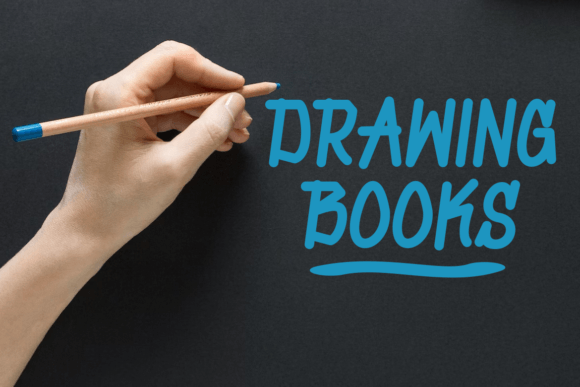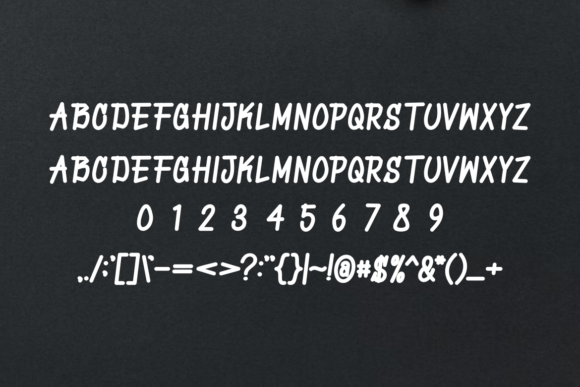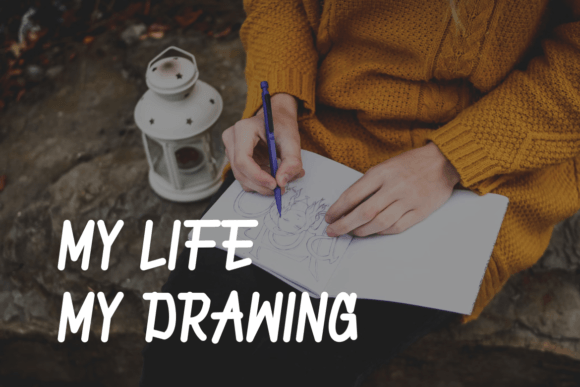
Introduction to Rushak Thatan Font
Have you ever sat in front of a blank canvas, staring at a blank page, and wondering where to start? The blank slate of a creative project can be intimidating, but it’s also an opportunity to bring your ideas to life. And what better way to do that than with a font that’s as unique as your imagination?
Enter the Rushak Thatan Font, a natural and friendly handwritten font that’s perfect for designers looking for a high-quality design resource. With its transparent background and free download option, this font is a valuable asset for any creative project. Its natural and unique style makes it incredibly fitting to a wide range of designs, limited only by your imagination.
Key Features of Rushak Thatan Font
- High quality design resource ideal for creative projects, with a unique and elegant aesthetic.
- Features a transparent background, allowing for easy layering and composition in your design projects.
- Designed with precision and care, ensuring a crisp and clear display at resolutions up to 300 DPI.
- Perfect for use in graphic design, digital art, and typography projects, where a high-quality font is essential.
- Supports a wide range of languages, making it a versatile choice for designers working on multilingual projects.
Honest Review: Rushak Thatan Font
I recently had the opportunity to work with the Rushak Thatan Font for a creative project, and I must say it’s a great addition to any designer’s resource arsenal. The font’s unique design and high quality make it a standout choice for any design-related task.
Here are some of the things that work well with the Rushak Thatan Font:
- ✨ High quality and crisp lines make it perfect for large-scale designs
- ✨ The font’s transparent background makes it easy to layer and combine with other design elements
While the Rushak Thatan Font is a solid choice, there are some limitations to be aware of:
- ⚠️ The font may not be as versatile as some other options, making it less suitable for projects with a wide range of font sizes
- ⚠️ The font’s unique design may not appeal to all designers or audiences
Overall, I’m impressed with the Rushak Thatan Font and would definitely consider using it for future creative projects. Its high quality and transparent background make it a valuable resource for any designer looking to elevate their design game.
Rushak Thatan Font is a high-quality design resource ideal for creative projects. This font features a transparent background, making it versatile for various applications.
To maximize the potential of Rushak Thatan Font, experiment with different font sizes, colors, and combinations to achieve a unique look for your design project.
Rushak Thatan Font is suitable for a variety of design projects, including:
- Logos and branding materials
- Social media graphics and posts
- Presentation slides and documents
- Print materials, such as business cards or brochures